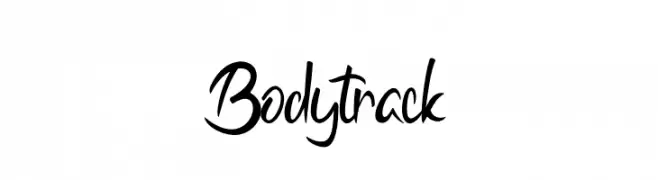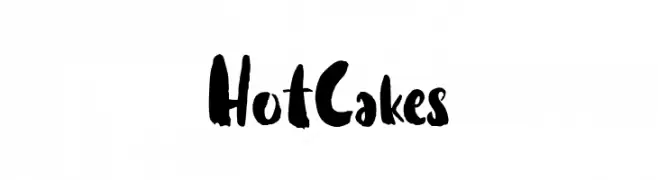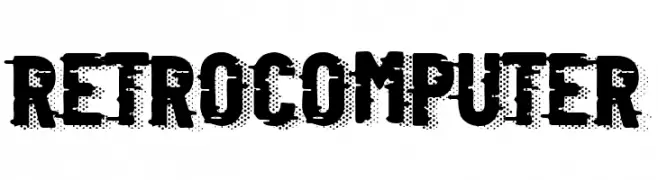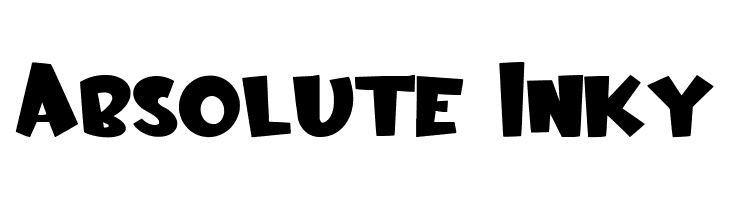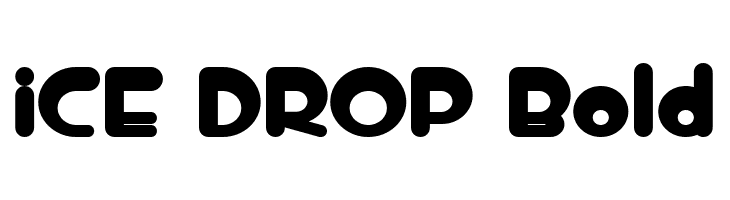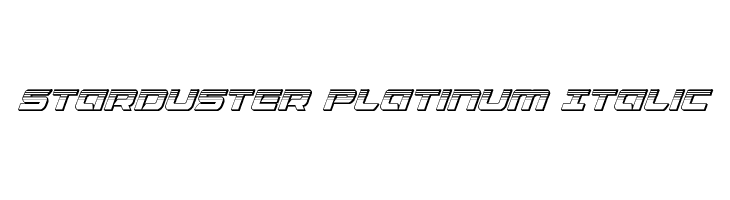
A futuristic and geometric font with clean lines and rounded edges.
A bold, distressed font with a grunge effect, perfect for impactful designs.
A bold, italic script font with dynamic, cursive letterforms.
A bold, fluid script font with dynamic curves and artistic flair.
A modern, striped font with a barcode-like appearance, perfect for decorative use.
A playful, hand-drawn font with bold, irregular strokes and a casual aesthetic.
A bold, brush-style font with a hand-painted, artistic appearance.
A bold, italicized font with dynamic and energetic strokes.
A bold, dynamic script font with flowing cursive elements.
A bold, distressed font with a vintage halftone texture.
设计师偏爱 Arcade Future DEMO, Zilipeppö, Tagapagsalaysay Caps [Narrator] Italic, Bodytrack and Superguns Vertical Regular,因为其造型干净、适用范围广—— 从品牌识别到落地页、海报都能胜任。